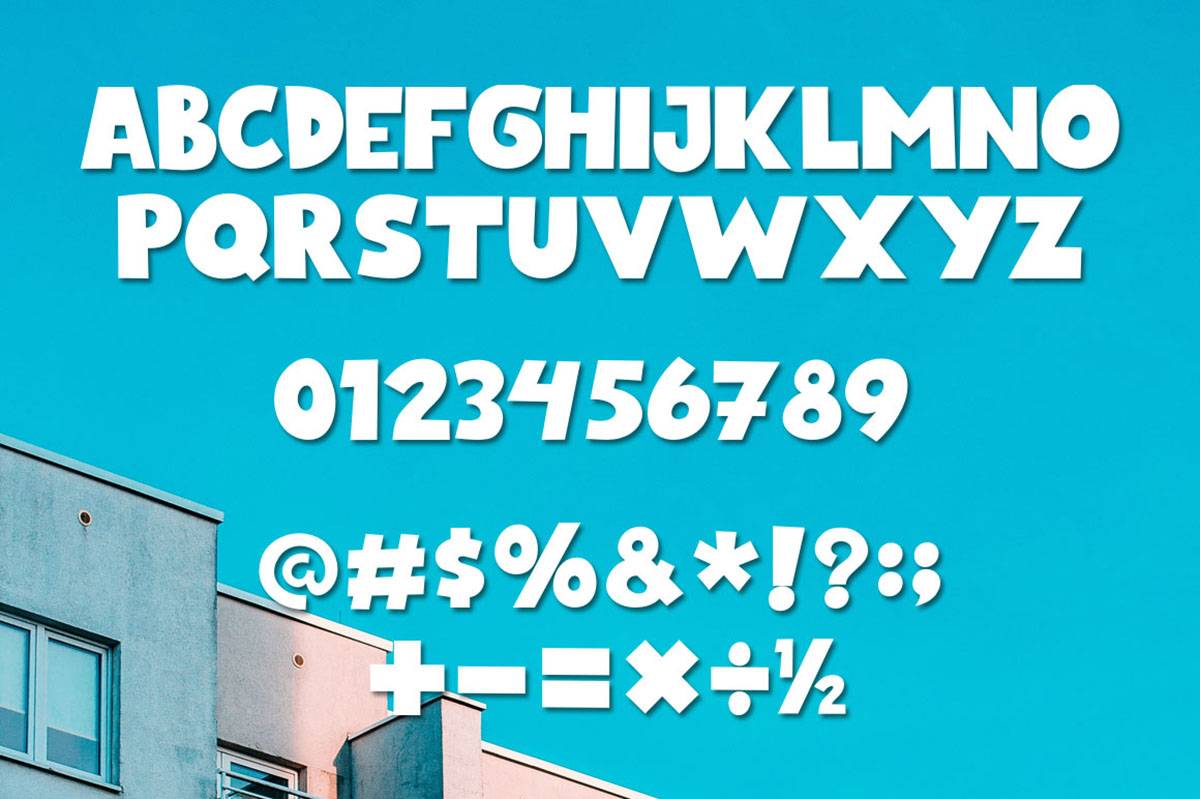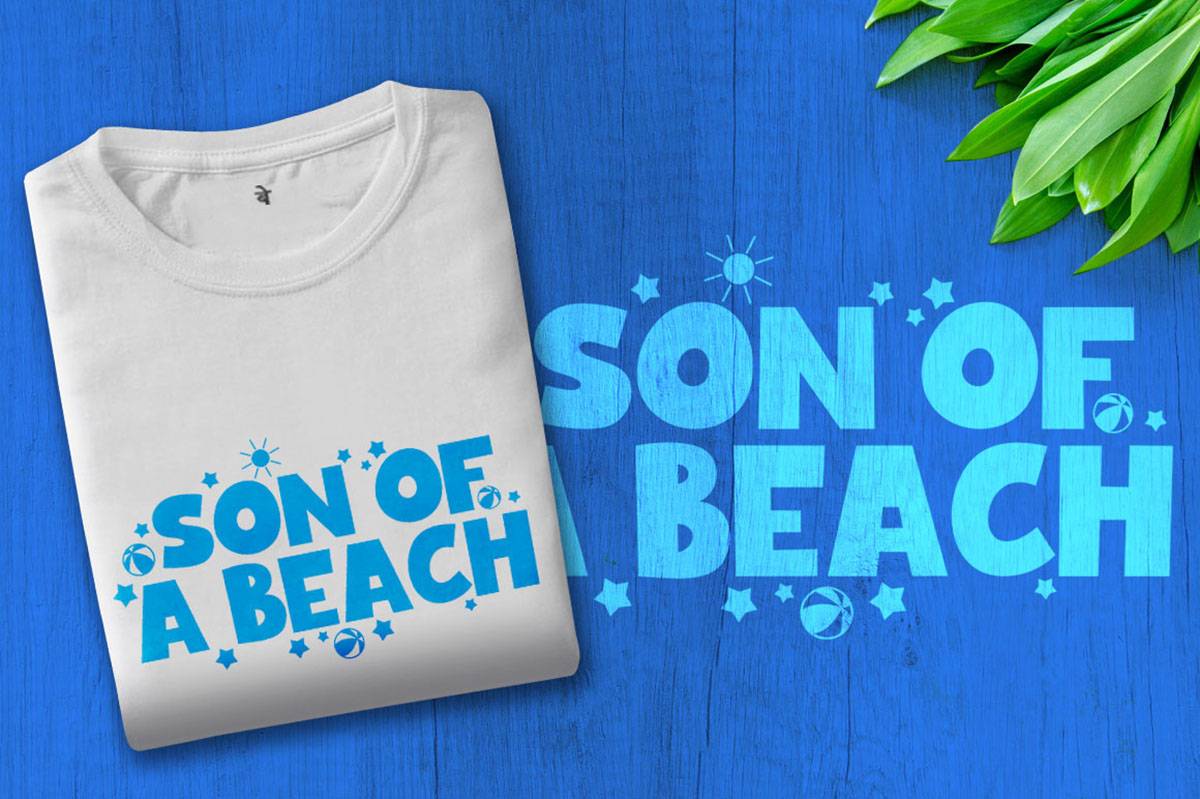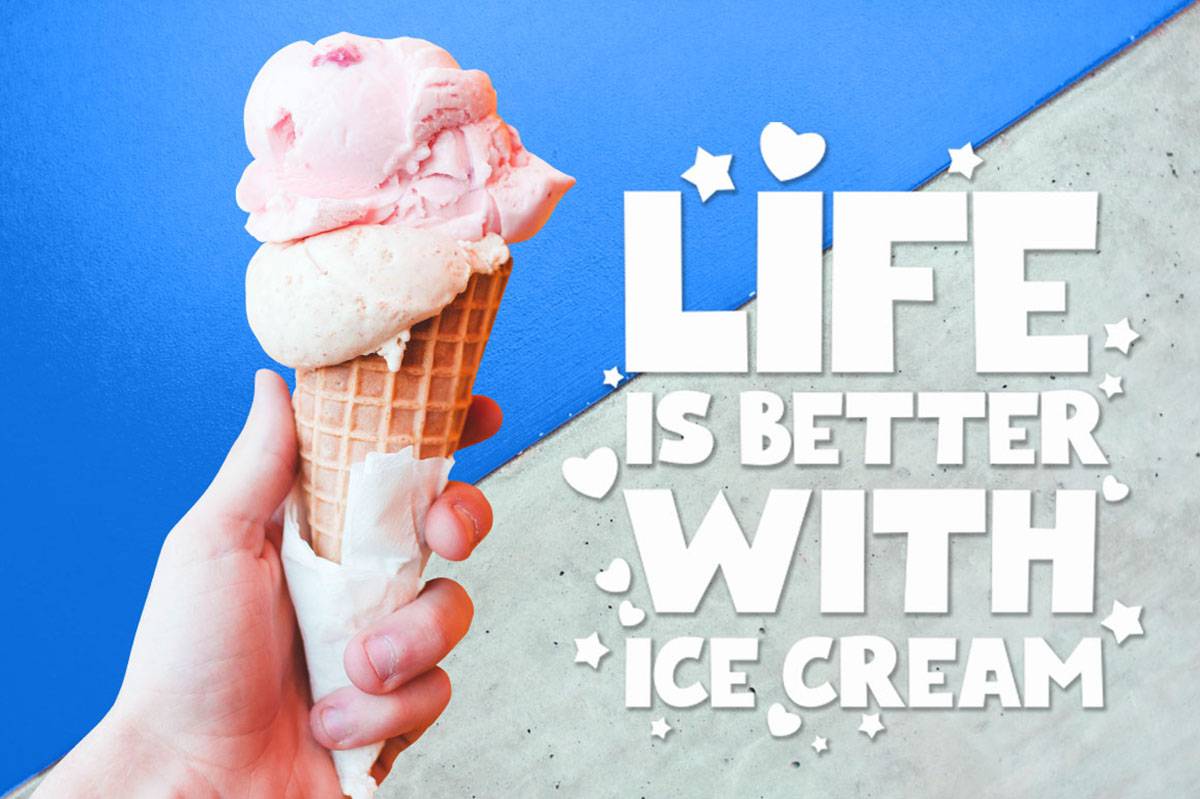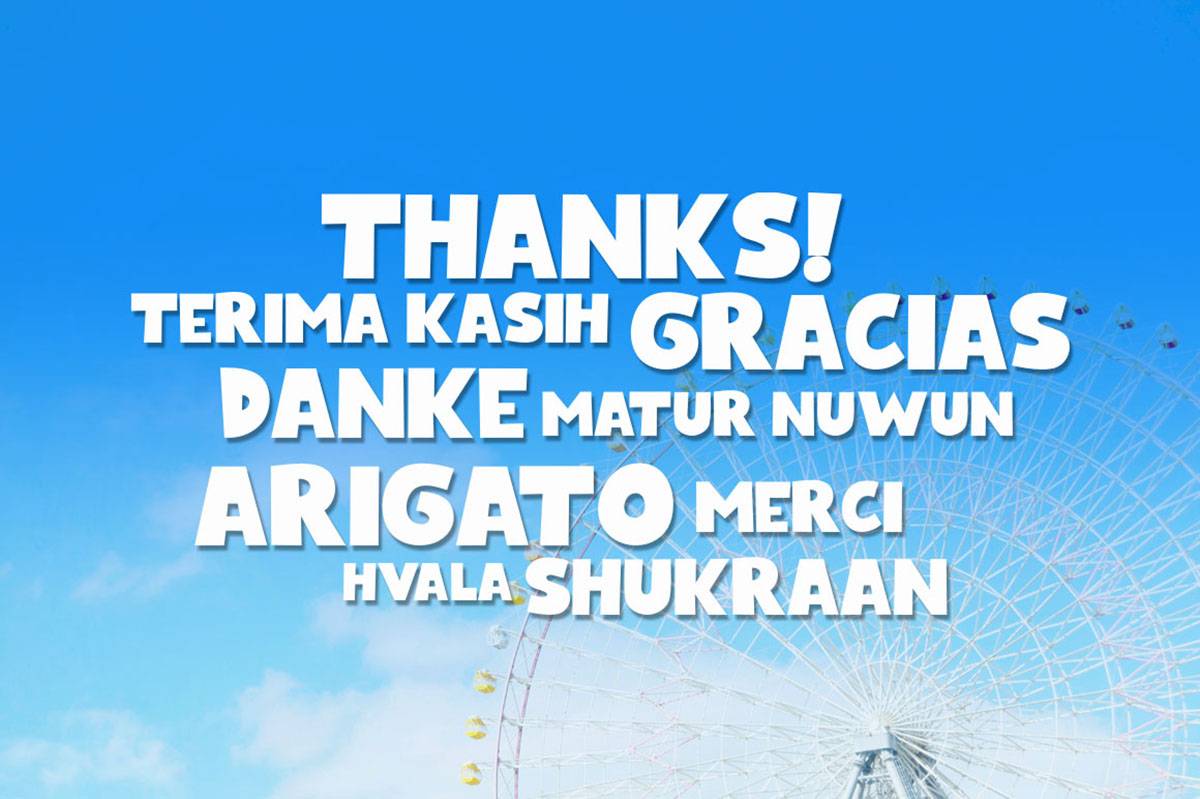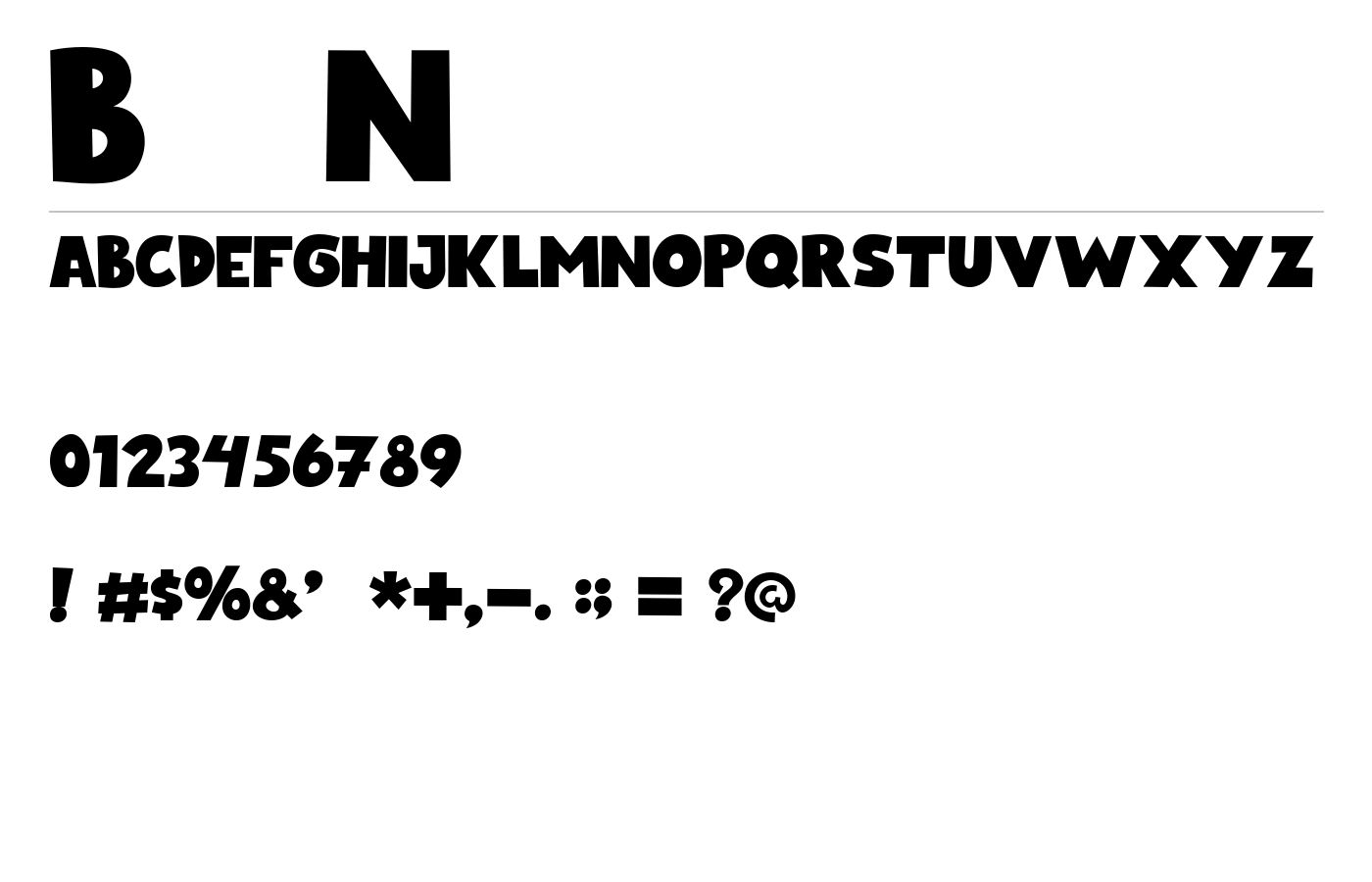
Blue Night is a bold, playful sans serif font with thick, rounded letterforms that create a friendly and approachable vibe. Its wide, chunky shapes and slightly irregular edges give it a fun, informal personality ideal for eye-catching headlines, children's content, and creative branding. This font works best in logos, posters, and other display uses where a lively and energetic tone is desired.
Blue Night Font
About Blue Night Font